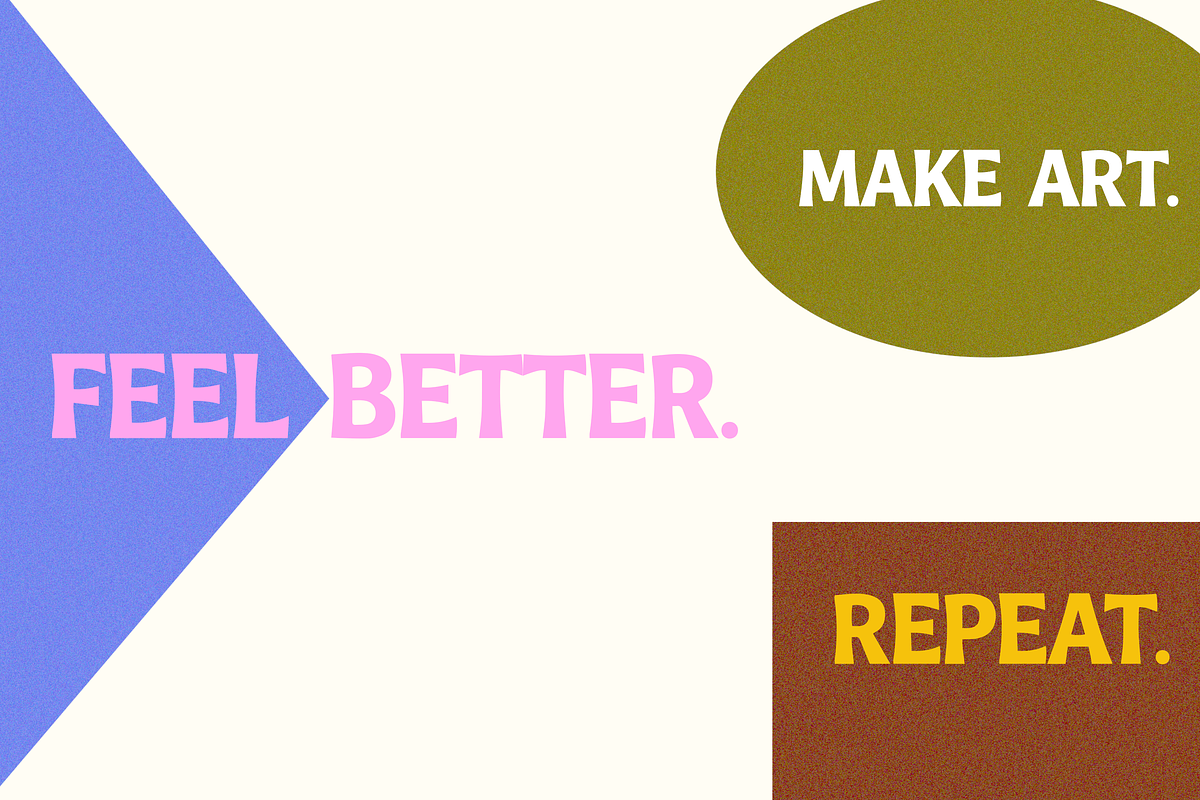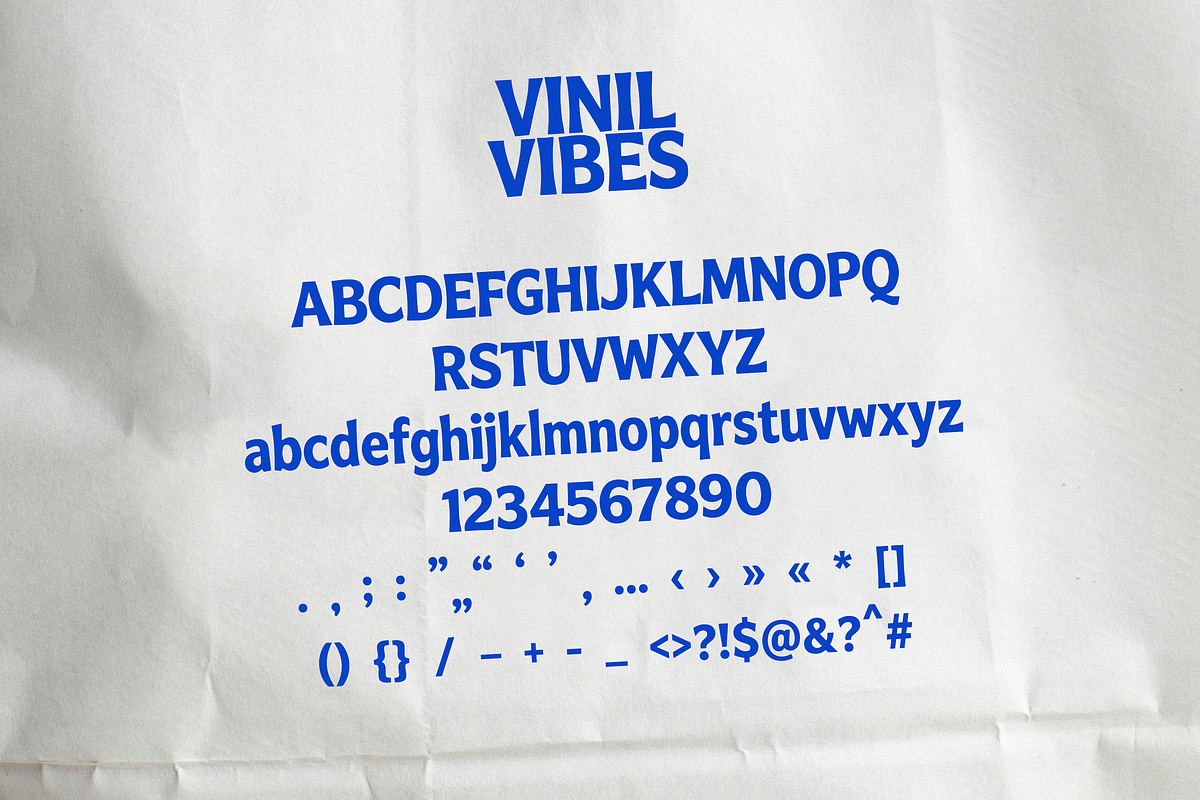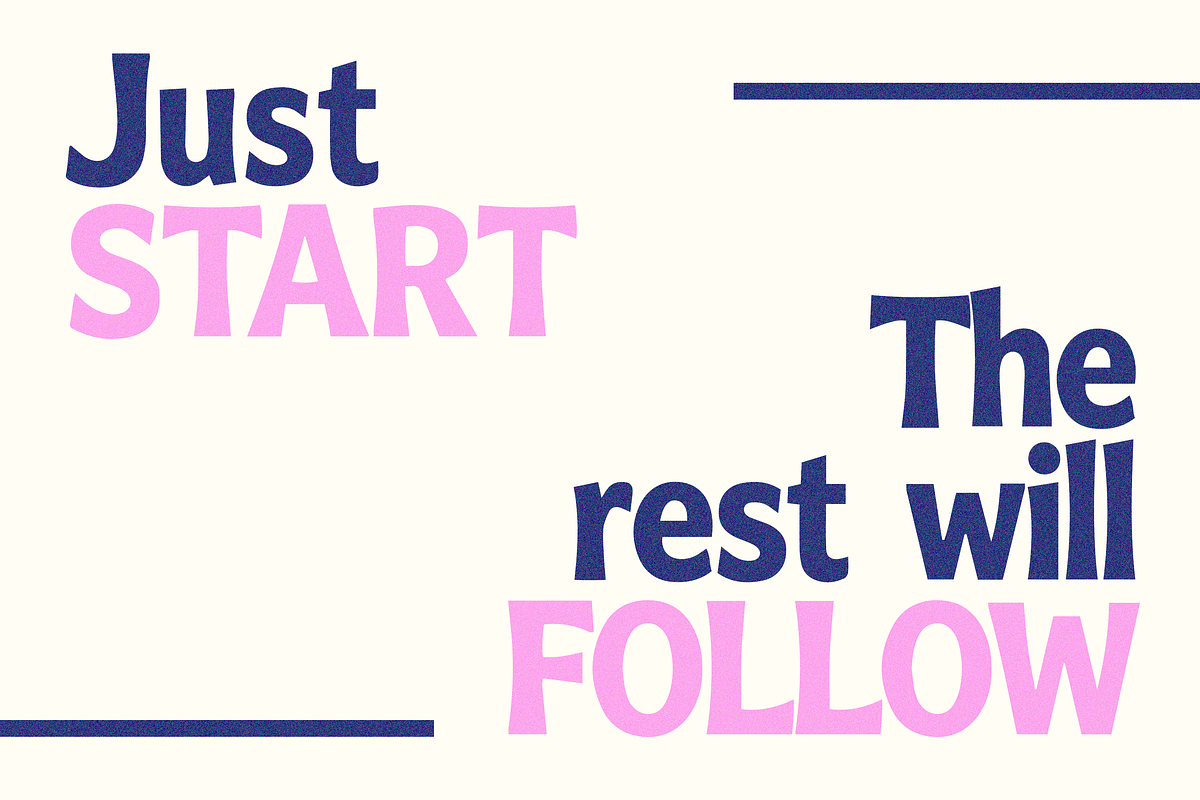
Vinil Vibes Bold Retro Display Font
Meet Vinil Vibes, a bold retro display font with a playful character made to grab attention. Designed for big titles and expressive branding, it brings instant vintage energy to posters, logos, merch, packaging, and social media visuals.